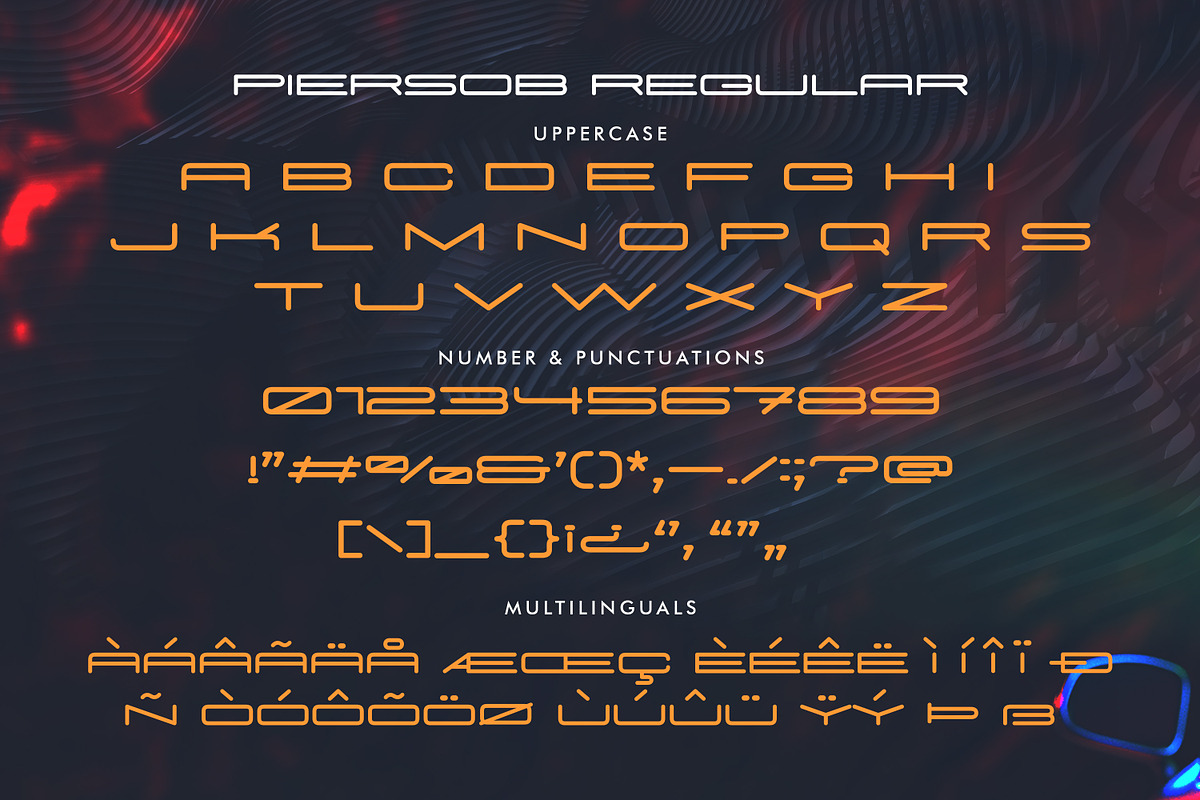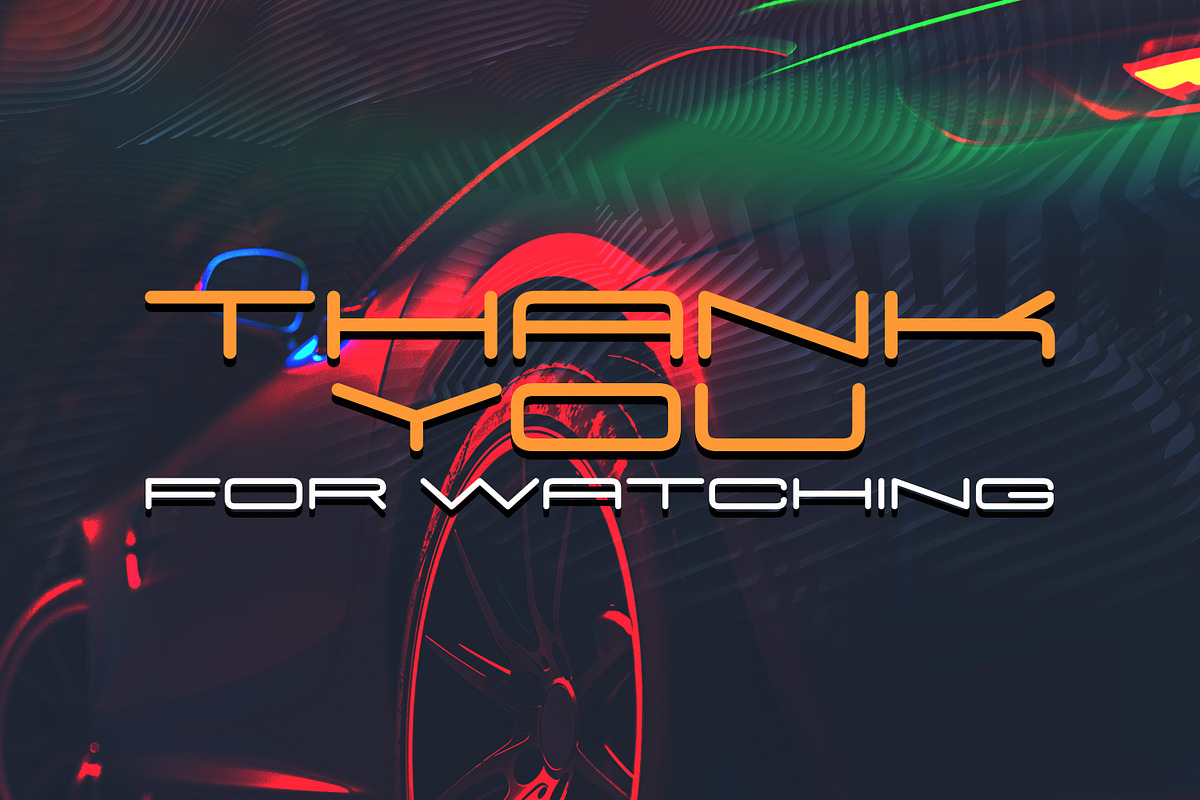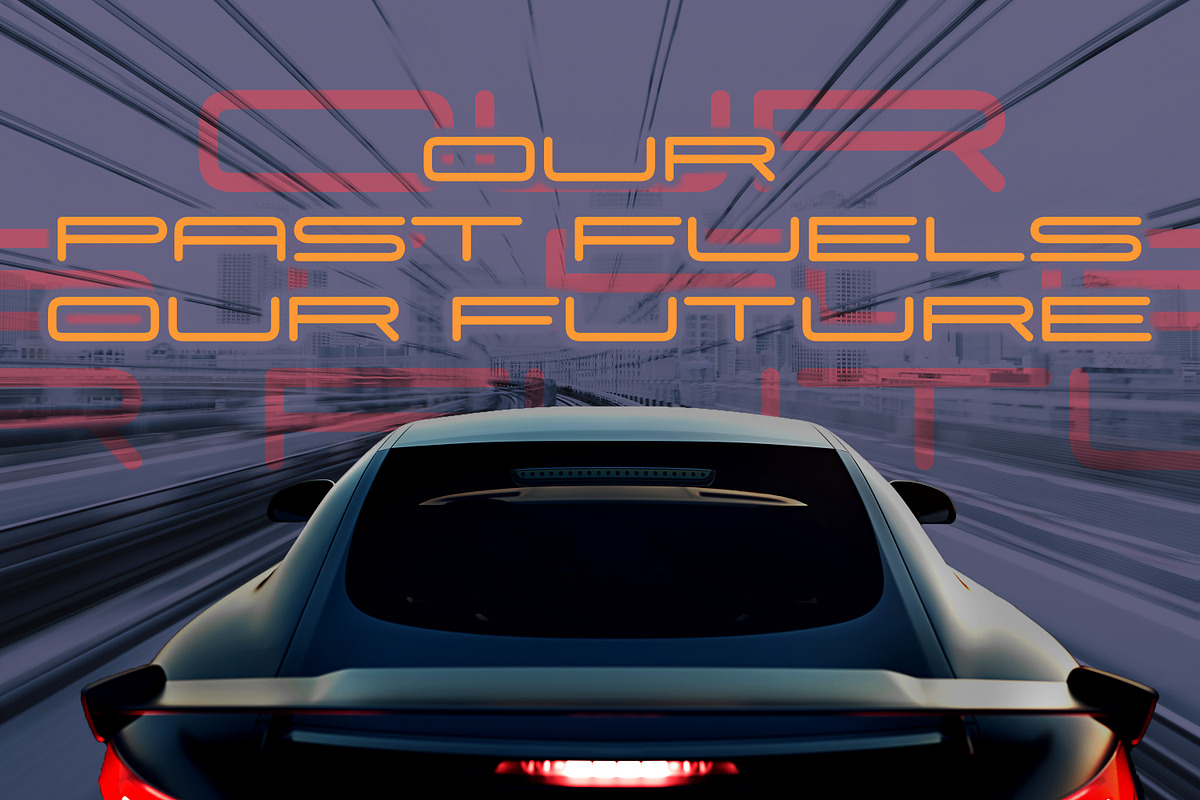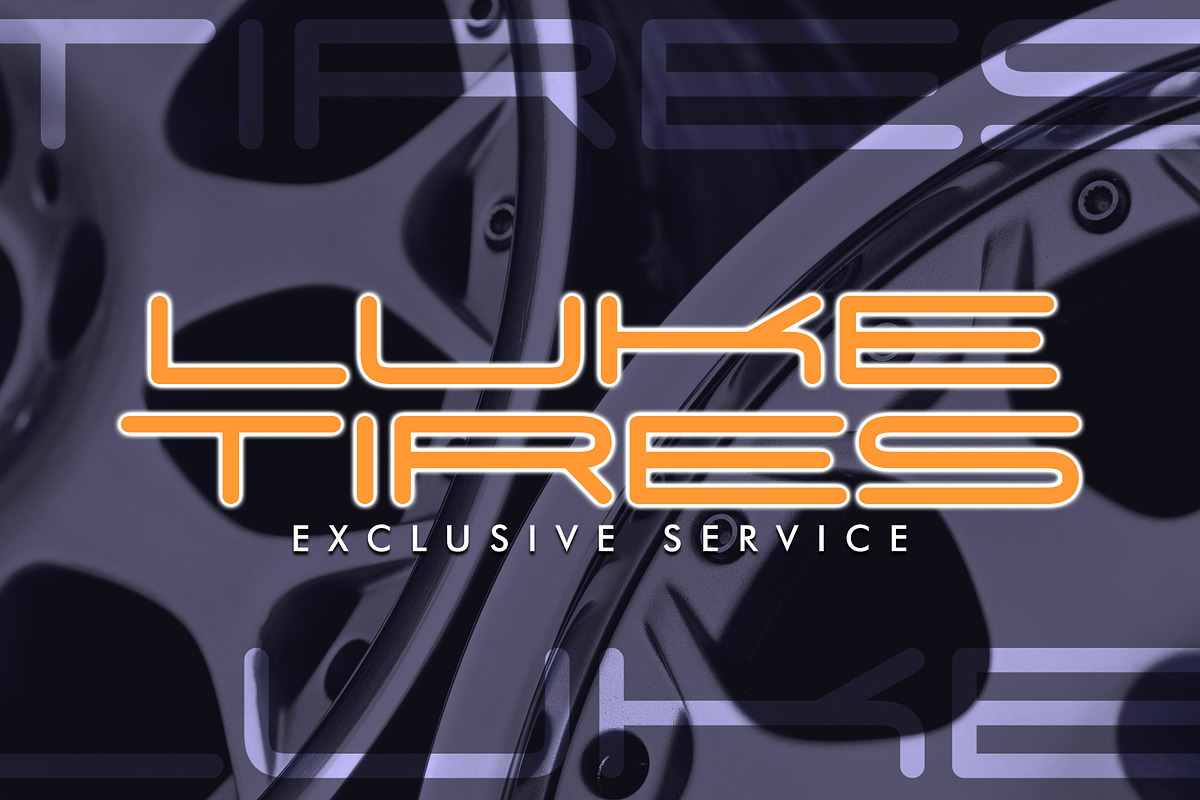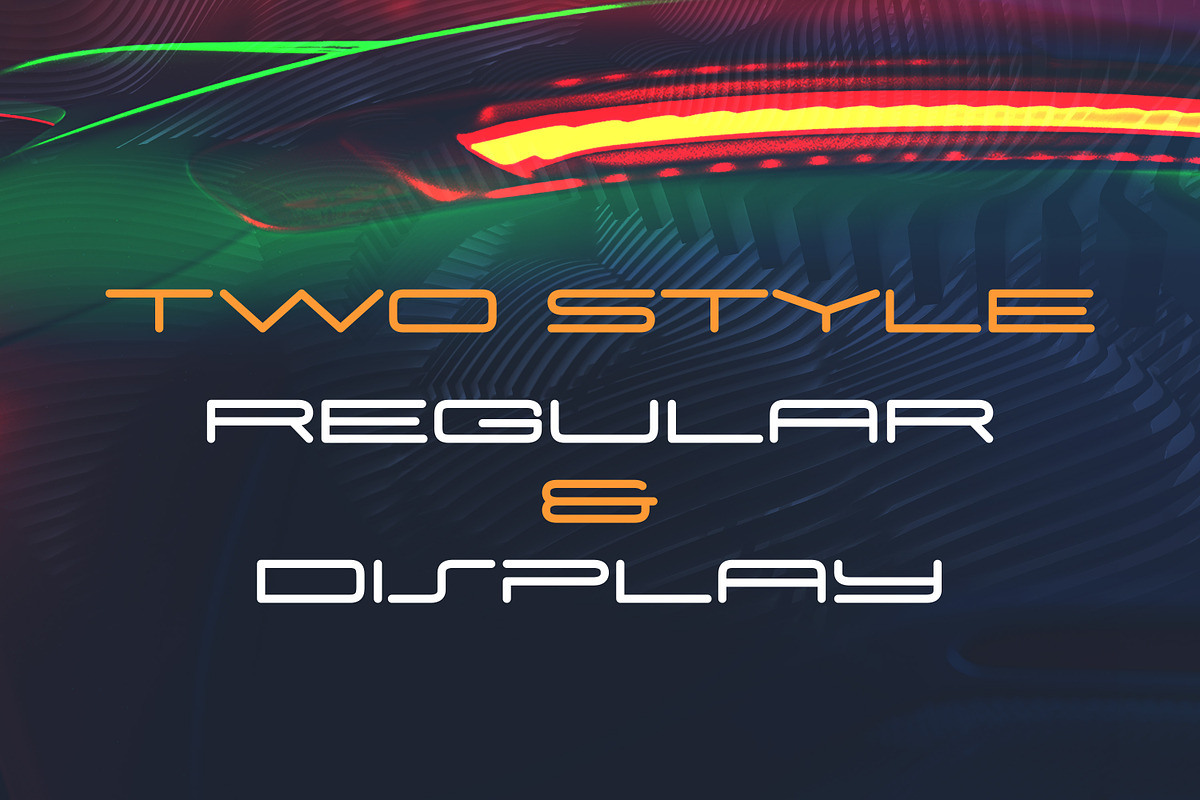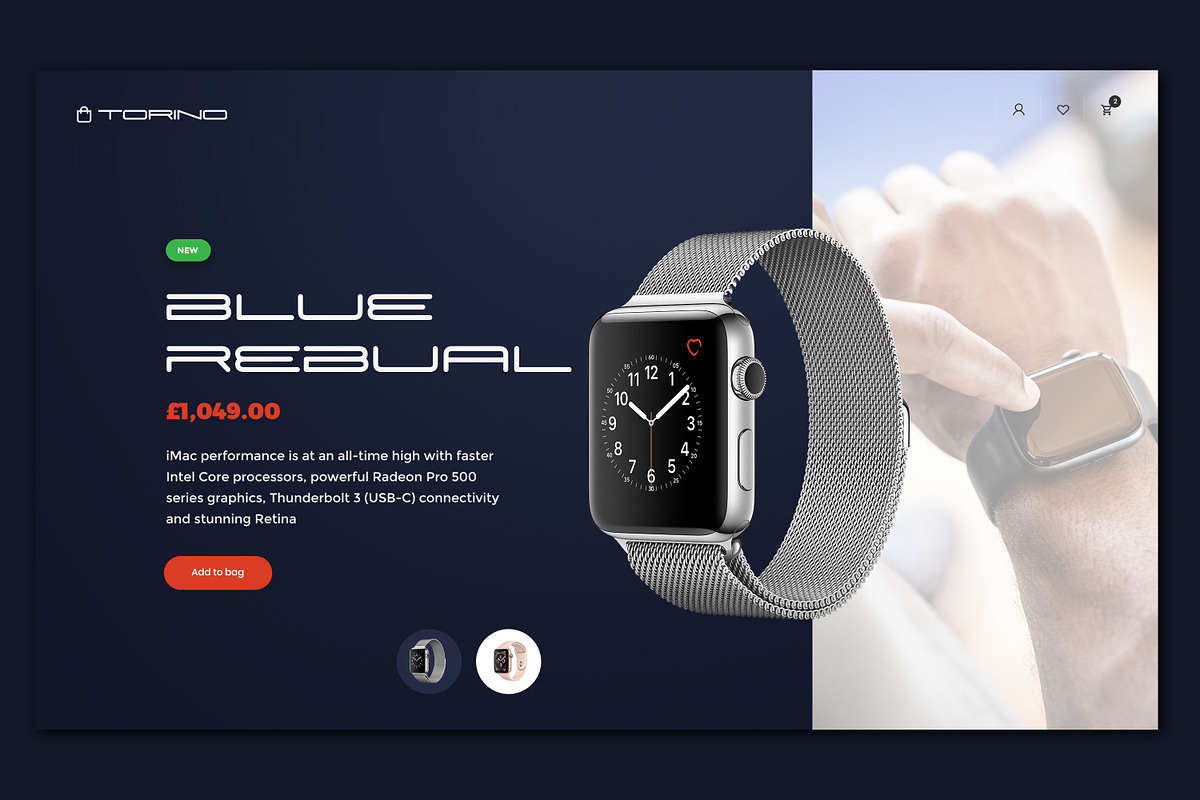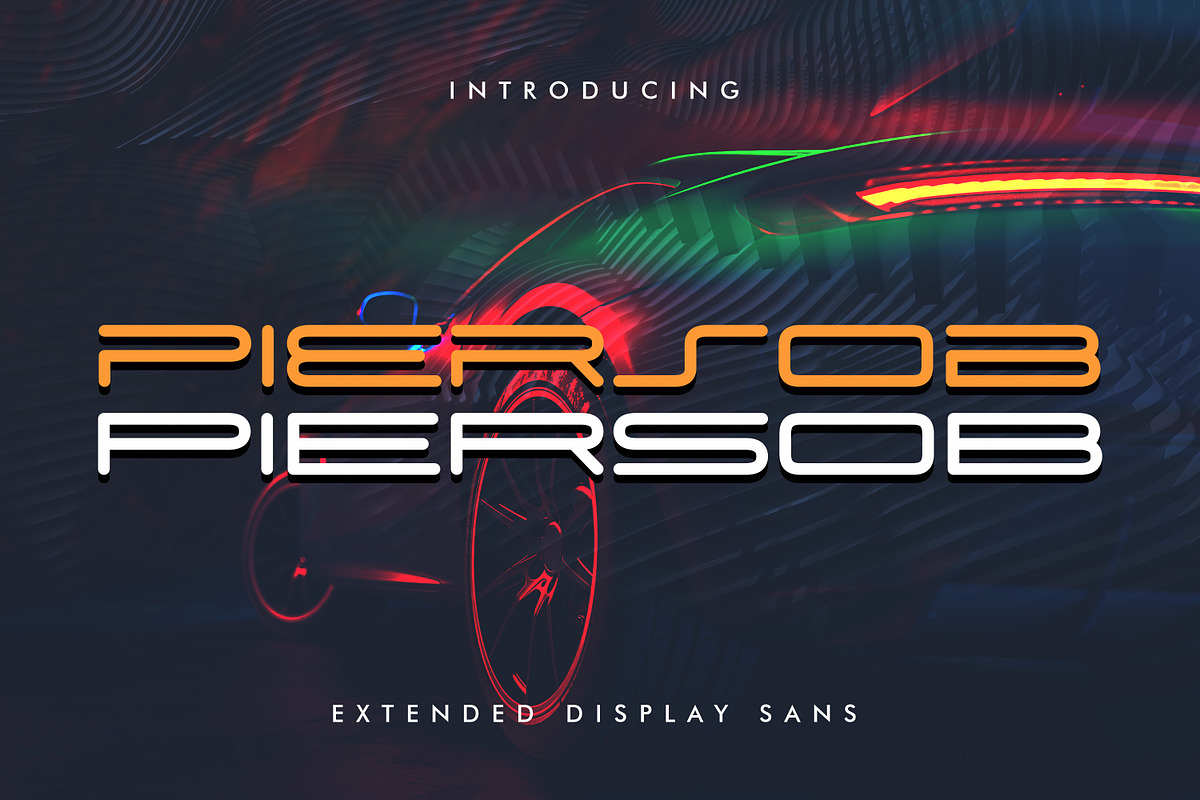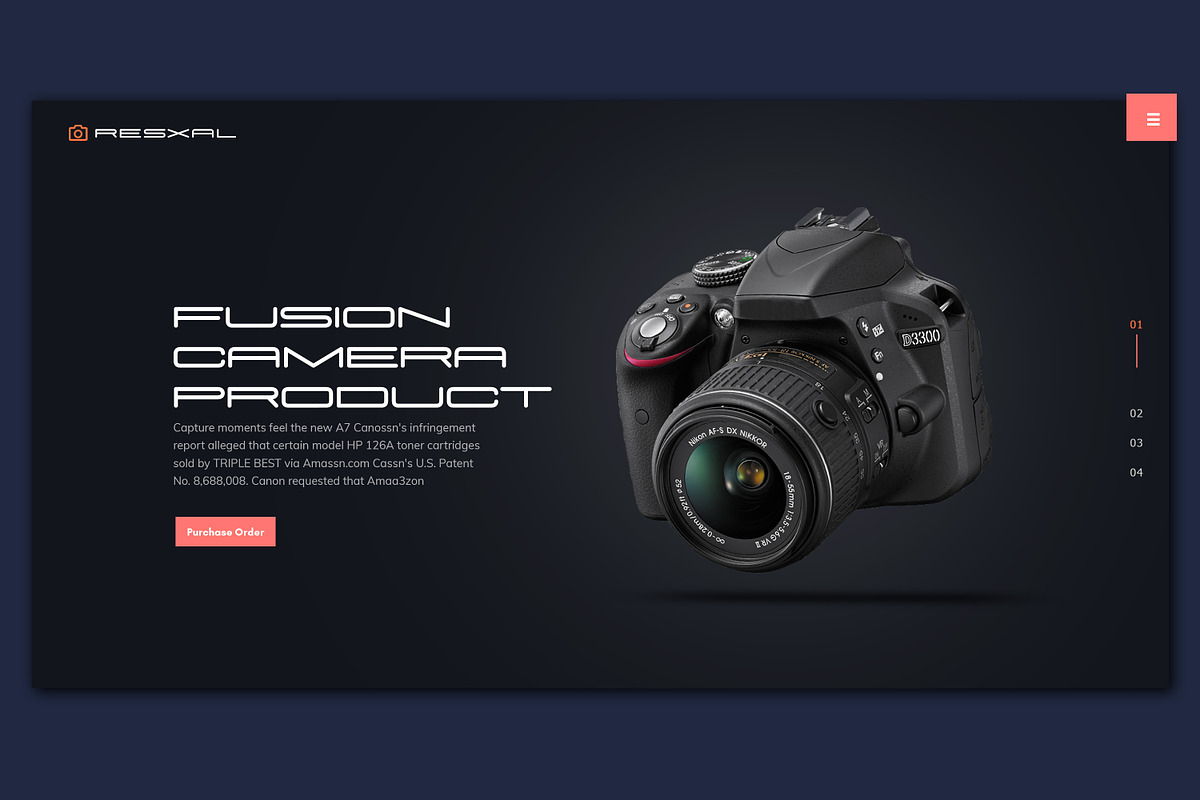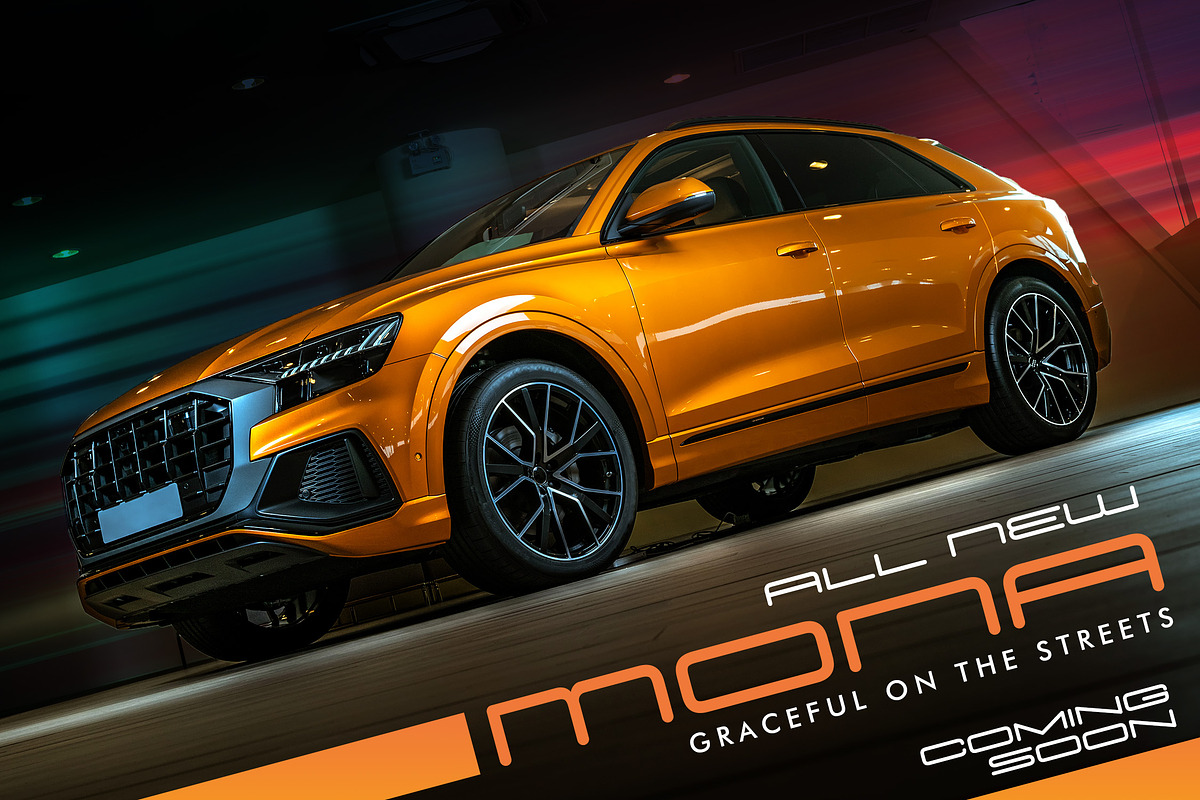
Piersob - Extended Display Sans
Hello Everyone, Introduce our new collection, Piersob - Extended Display Sans Serif inspired by famous logos of Technology and brands that have very strong characteristics, very suitable for posters, packaging, branding, logotype and more.
Piersob font with strong and challenging nuances. very suitable for the title, typography, Poster, magazines, brochures, packaging,Websites and much more for your design needs, making your designs more modern and professional